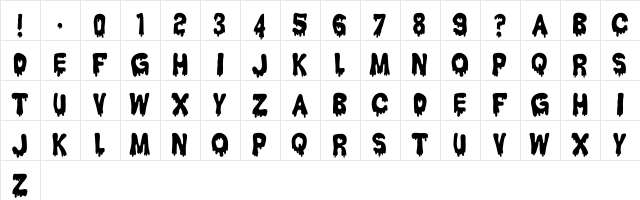
Hantu Kom Kom Regular
Design Context for Hantu Kom Kom Typeface
Hantu Kom Kom is a composed and adaptable typeface that performs quietly and consistently across a wide range of design contexts.
Pro Tip: Use Hantu Kom Kom in both headline and body roles to test its range before committing to a single application.